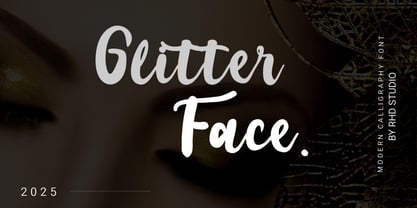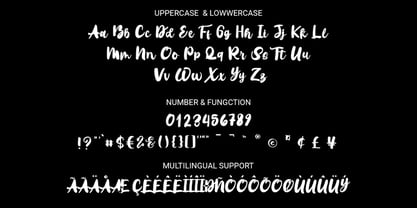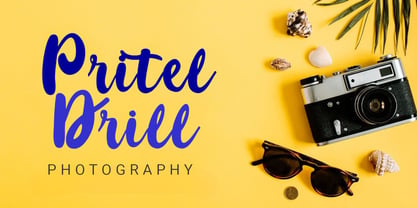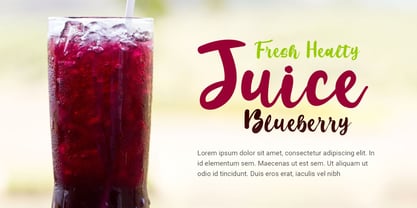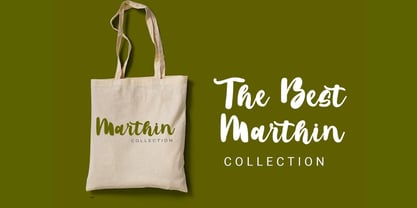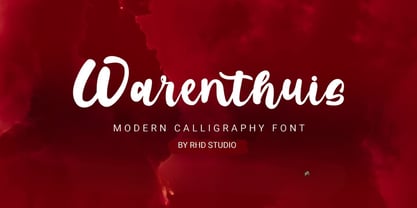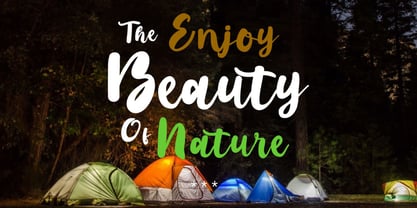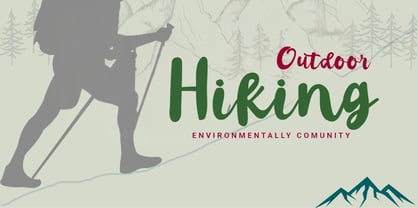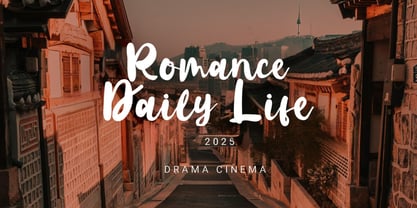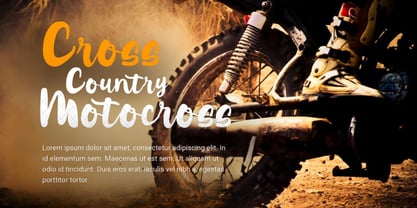
Warenthuis
Hello everyone, I would like to introduce Warenthuis Brush Handwritten Font.
Warenthuis Brush Handwritten Font with Handmade character. Warenthuis bring authentic handwritten font to make your design project stand out! Warenthuis is a perfectly choice for any creative endeavor, creating, modern, chic, lifestyle design such as logotype, title, cover, branding, invitations, wedding designs, display and magazine, social media posts, advertisements, printed quotes, product packaging, corporate brand, product designs, labels, photography, watermarks, special events and any other project with modern touch.